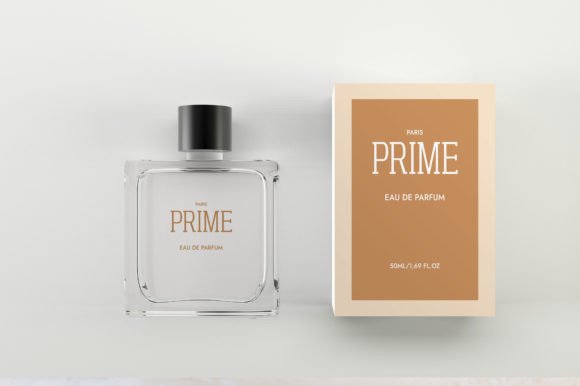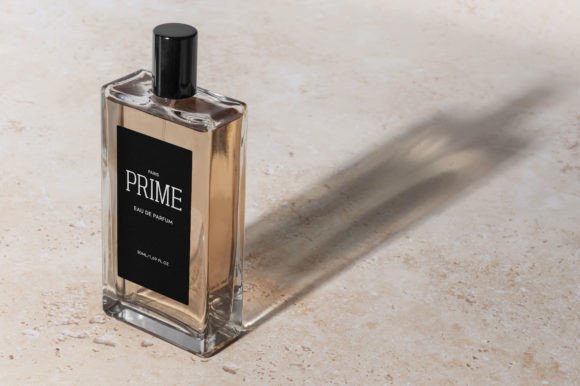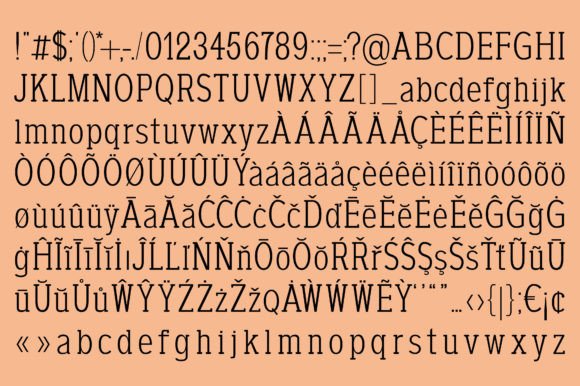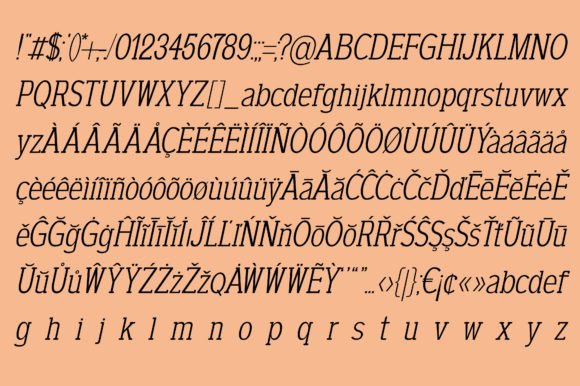
Introduction to Prime Font
Prime is a thin, elegant, and rounded slab serif typeface designed to be used as a display slab serif.
It adapts wonderfully in contexts such as designing labels for perfumes, cosmetics, magazine covers, posters, manifests, flyers, social posts, and fashion Use it in your creations so you can notice how fastly it becomes one of your favorite fonts.